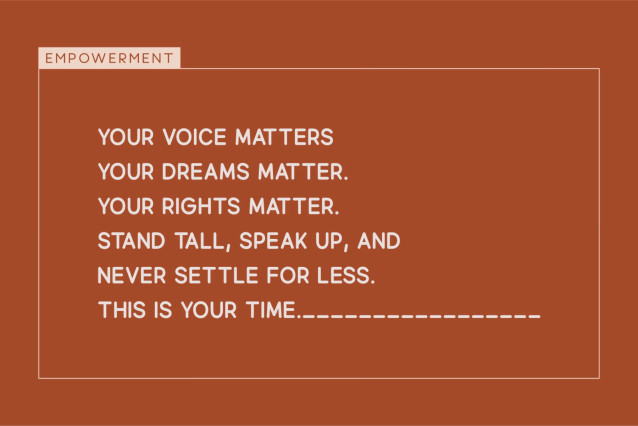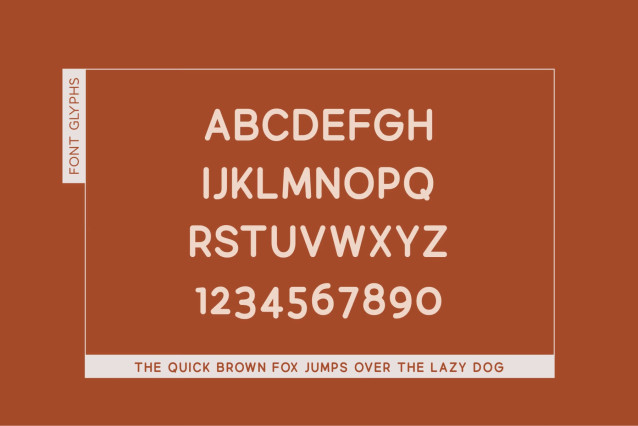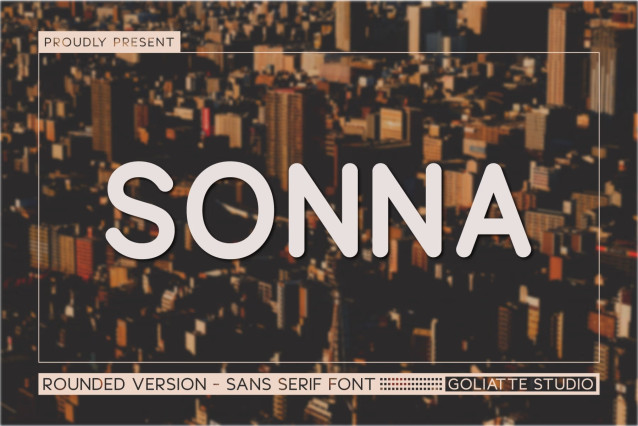
Sonna Font
Define smooth urban elegance, friendly contemporary poise, and clean structural rhythm with Sonna! This rounded sans-serif typeface combines generous letter spacing, sleek uniform strokes, and subtly curved joints for a soft yet polished modern finish.
Ideal for urban lifestyle branding, minimalist fashion logos, skincare packaging, café identity systems, website headers, and modern social media design!